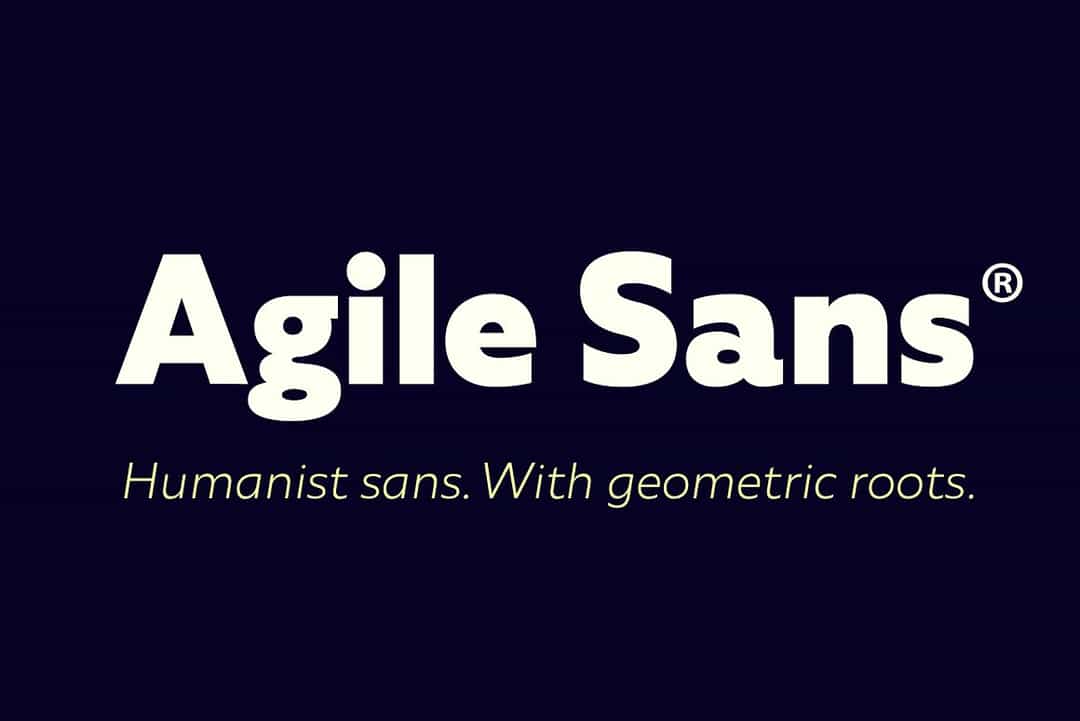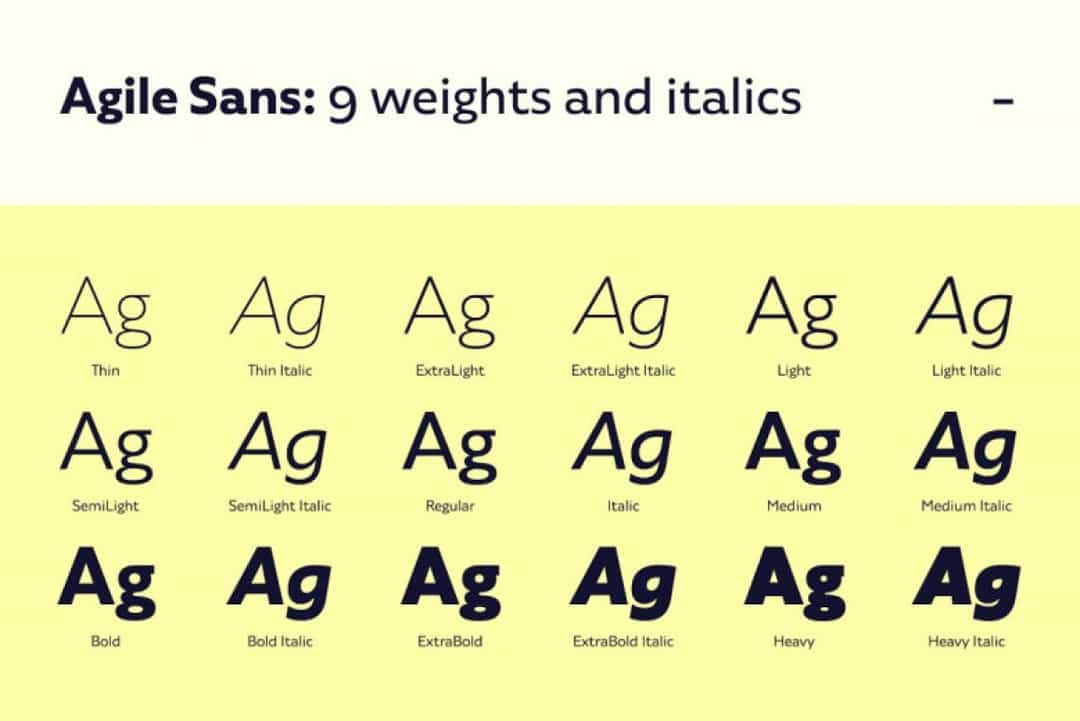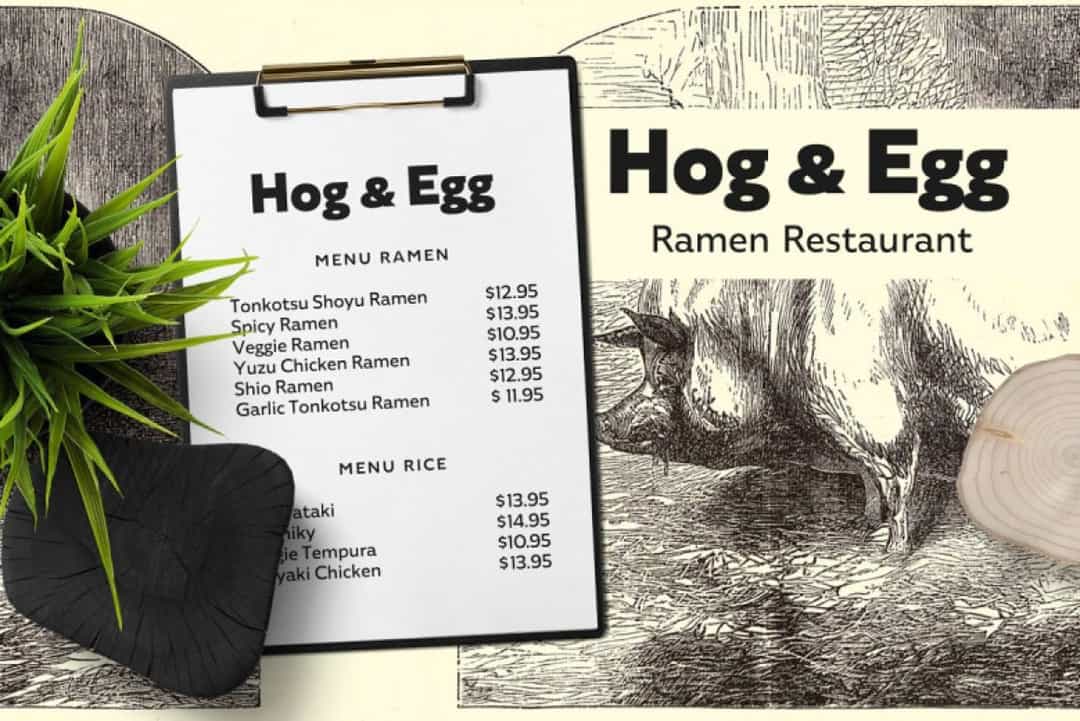
Agile Sans is a modern humanist font family with classicist roots. Apt for use in branding, websites, publications and applications alike – from casual to formal or refined purposes alike, Agile Sans can fit perfectly.